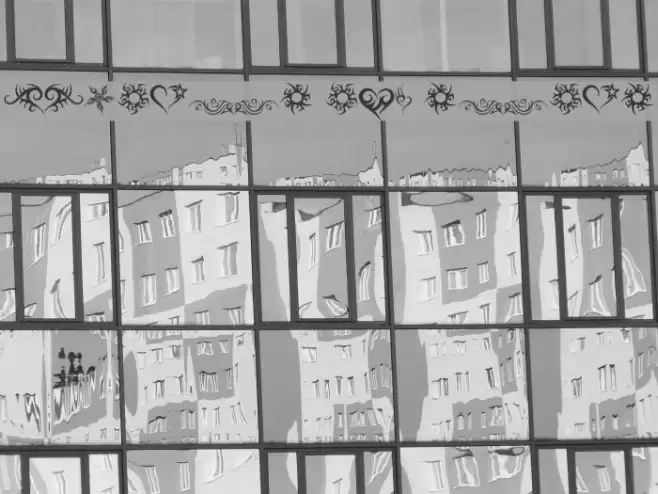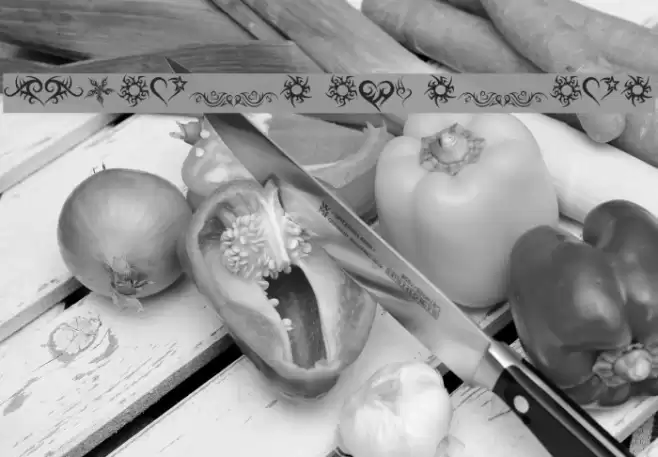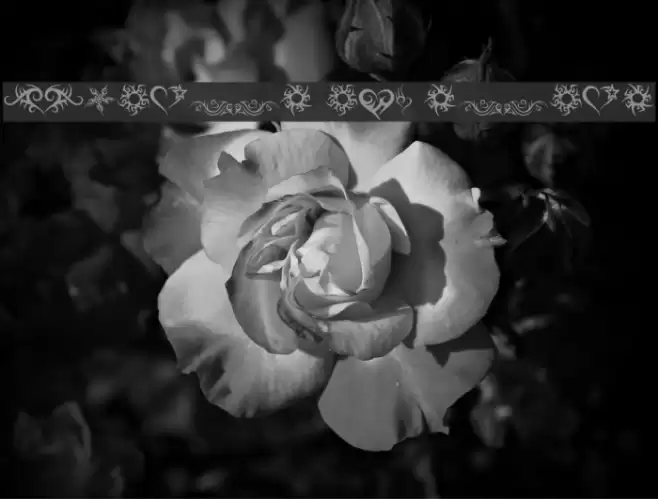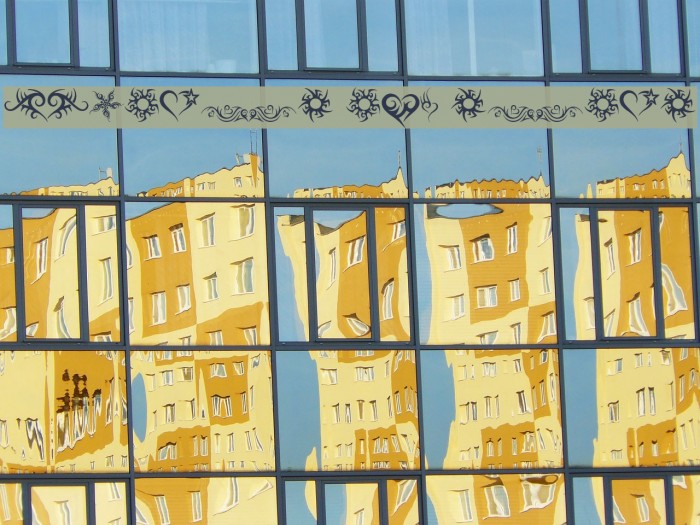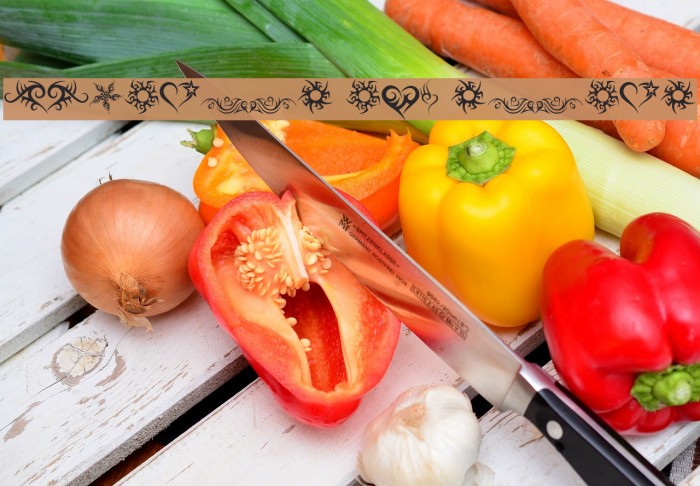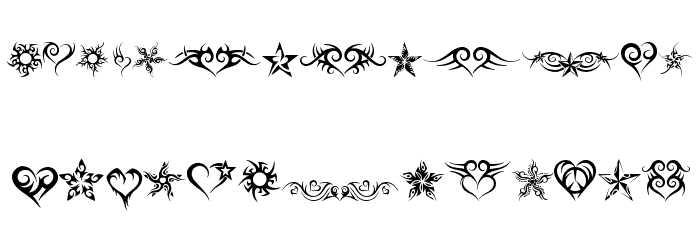
Hearts and Stars Font
Hearts and Stars Description
This decorative font features a unique blend of hearts and stars motifs, creating an intricate and artistic design. The characters are adorned with elaborate flourishes and embellishments, making it ideal for creative and ornamental projects. The numbers and special characters maintain a classic serif style, providing a contrast to the decorative elements. This combination of decorative and classic elements makes it versatile for various design needs.
A decorative font combining hearts and stars with classic serif numbers from Uncategorized fonts.
- Proposed Projects: Ideal for wedding invitations, greeting cards, decorative posters, and artistic branding.
- Use Case: Logos, Decorative text, Artistic projects